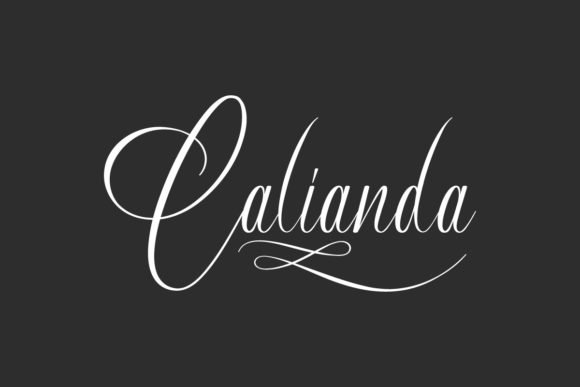
Embark on a Typographic Voyage with Calianda: The Epitome of Elegance and Sophistication
Journey into the realm of exquisite typography with Calianda, a script font family that exudes luxury and modernity. Designed by the visionary minds at Vintype, Calianda is an artistic masterpiece that will elevate your creative projects to new heights. Experience the allure of handwritten elegance, where each letter dances across the page with a graceful fluidity. Indulge in the opulence of Calianda, and let your words radiate with a timeless charm.
Unleash Your Inner Artist: Calianda - The Font of Limitless Expression
Awaken your artistic spirit with Calianda, a versatile font family that adapts seamlessly to a myriad of creative endeavors. Whether you're a seasoned designer, a budding entrepreneur, or simply someone with a passion for aesthetics, Calianda is your ultimate companion. Dive into the world of branding, logo design, invitations, social media graphics, and more, knowing that Calianda will effortlessly enhance your creations. Unleash your boundless creativity and watch as Calianda transforms your ideas into captivating visual masterpieces.
Explore the Depths of Calianda's Enchanting Features: A Treasure Trove of Typographic Delights
Calianda is a treasure chest of typographic wonders, adorned with a plethora of features that will ignite your imagination. Immerse yourself in the beauty of alternate characters, swashes, and ligatures, which dance harmoniously together to create a symphony of visual aesthetics. With Calianda, you'll unlock a world of possibilities, effortlessly crafting designs that captivate and inspire.
Calianda: A Font That Speaks to the Heart, Evoking Emotions with Every Stroke
Calianda is not merely a collection of letters; it's an evocation of emotions, a whisper of elegance, and a testament to the power of typography. With its luxurious curves and sweeping strokes, Calianda speaks directly to the heart, leaving an indelible mark on the viewer. Let your words flow through Calianda's enchanting characters, and watch as they transform into poignant expressions of love, joy, and longing.
Embrace the Calianda Experience: A Journey Through Typographic Excellence
Choosing Calianda is not just a purchase; it's an investment in typographic excellence. You're not just downloading a font; you're embarking on a journey of creative exploration, where the boundaries of design dissolve and new possibilities emerge. With Calianda as your trusted companion, you'll discover a world where words dance with grace, designs come alive with emotion, and your artistic vision knows no limits. Embrace the Calianda experience today, and let your creativity soar to new heights.